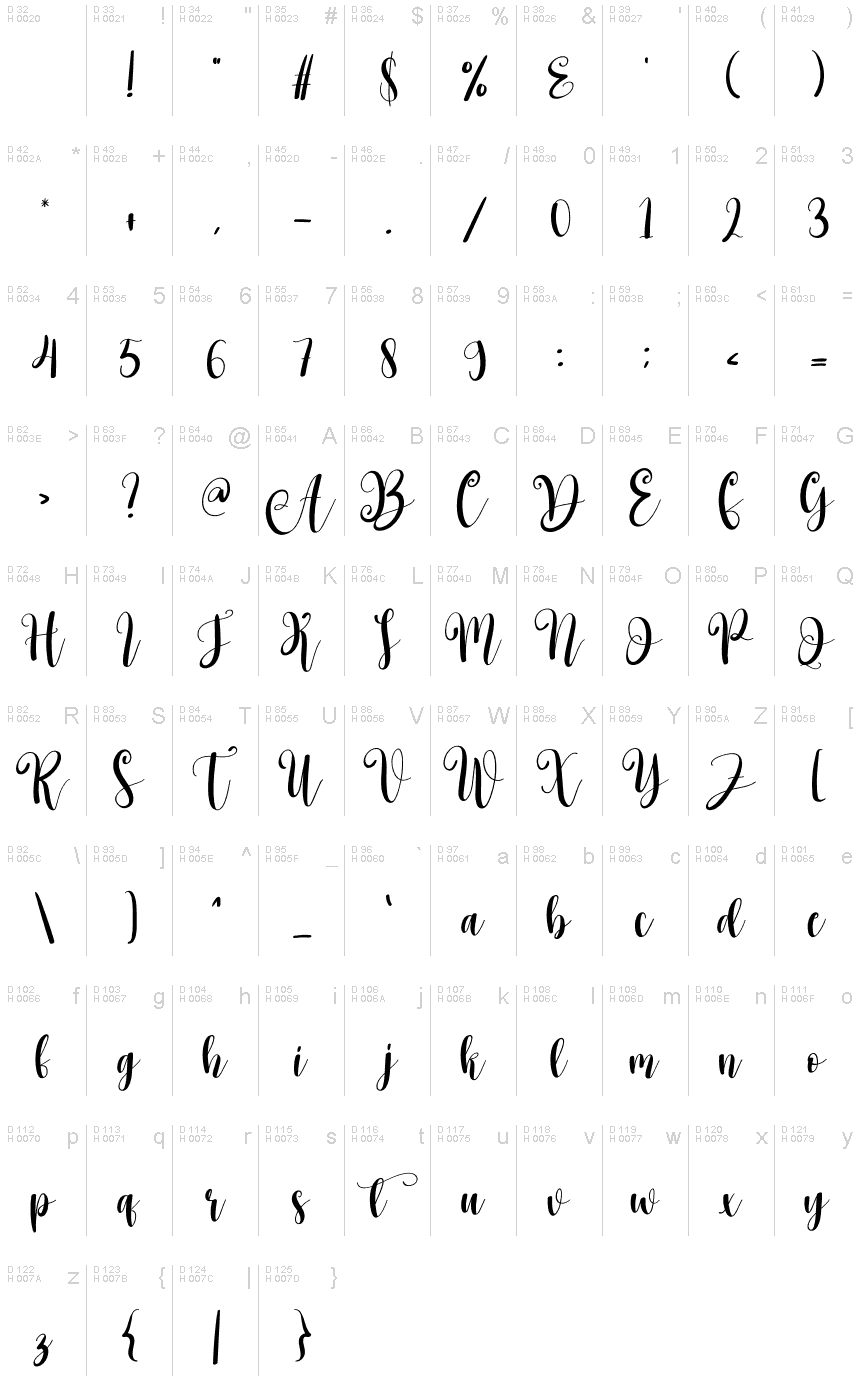
The Grinch
Meet The Grinch, a stunning calligraphy font designed by scratchones. With its semi-light weight, this font exudes elegance and sophistication. Its fluid strokes and sharp edges add a touch of modernity to its traditional calligraphic style. The Grinch is perfect for projects that require a touch of refinement such as wedding invitations, greeting cards or upscale branding materials. This font will make your text feel like it was handcrafted with care while providing excellent readability. Download The Grinch today and elevate your designs to the next level!
the latest style letters are perfect for wall displays, wedding invitations, social media post logos,
advertisements, product packaging, product designs, labels, photography, watermarks, invitations, stationery,
and any project that requires taste handwriting.